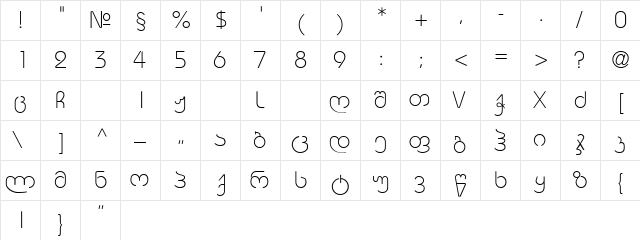
Bordeaux Georgian Regular
Design Context for Bordeaux Georgian Typeface
Bordeaux Georgian offers clean, dependable letterforms without strong stylistic allegiance, making it a practical choice for designers who need flexibility.